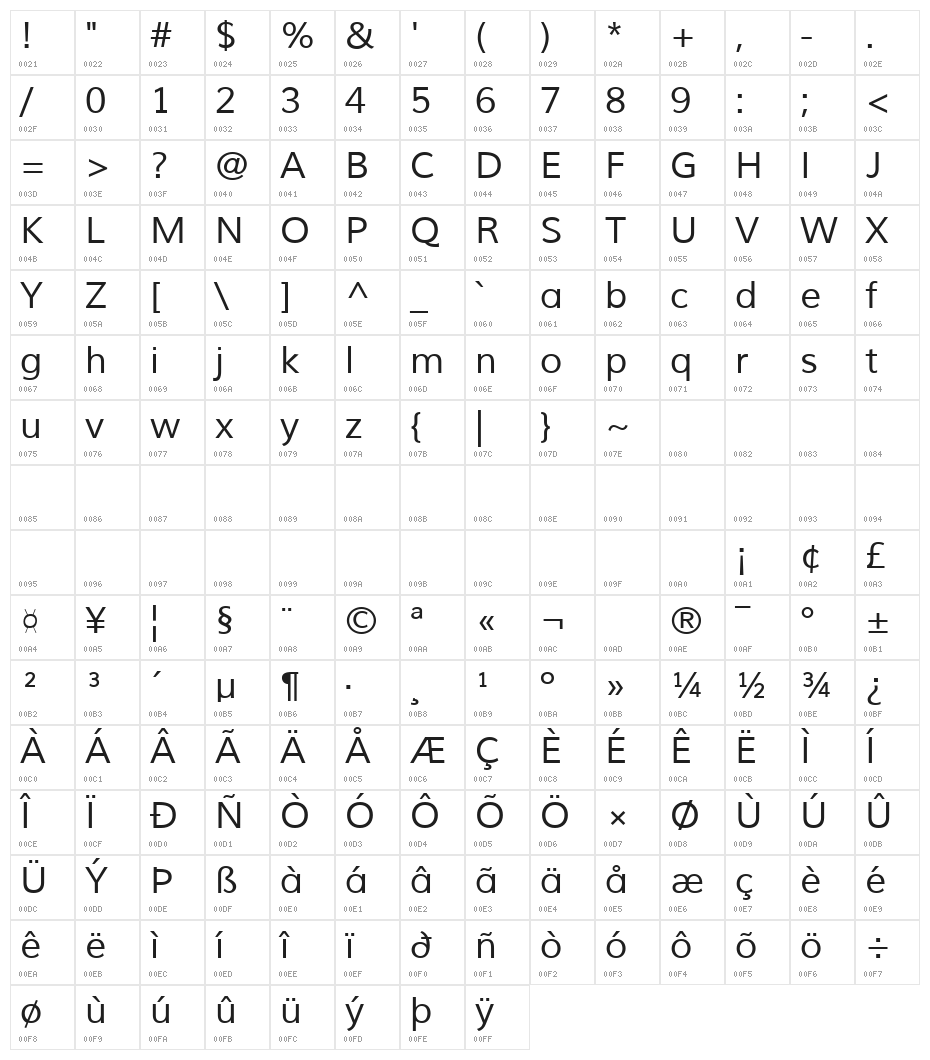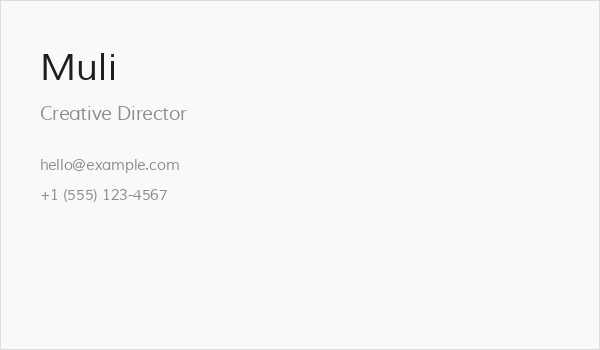
Muli Font
Muli Description
This font features a clean and modern sans-serif design, characterized by its simplicity and readability. The letters are evenly spaced with a consistent stroke width, offering a balanced and harmonious appearance. The uppercase letters are bold and assertive, while the lowercase letters maintain a friendly and approachable feel. The numerals are clear and distinct, making them suitable for various applications. Special characters are well-integrated, enhancing the font's versatility. Overall, this font is ideal for projects that require a contemporary and professional look.
| Use Case | Headlines, Body text, Logos |
| Proposed Projects | Ideal for web design, branding, corporate materials, and user interfaces. |